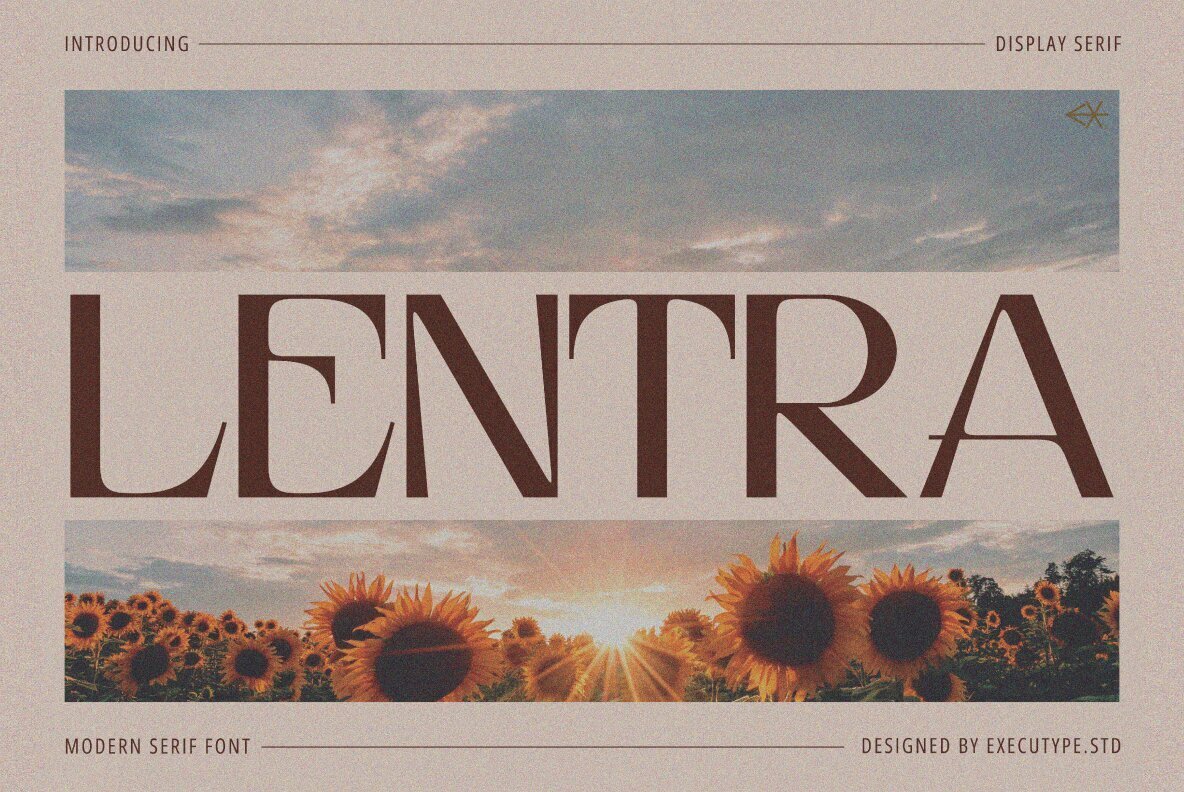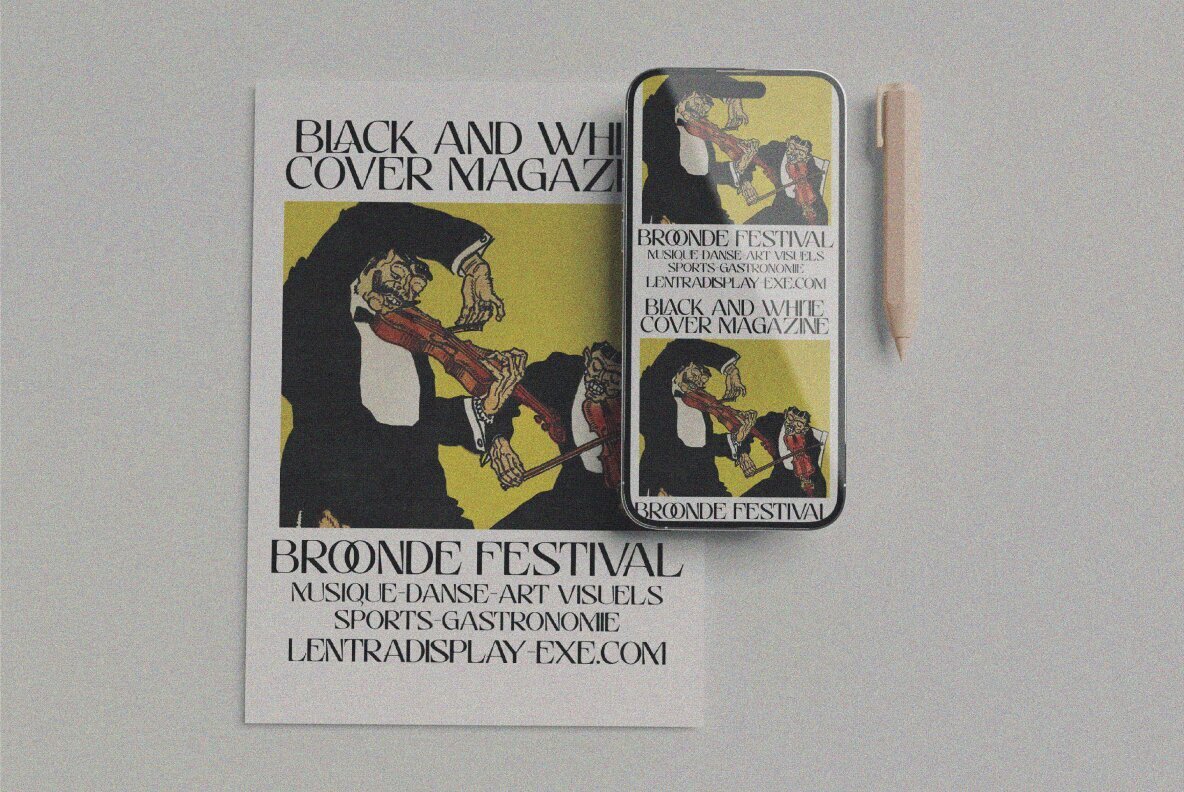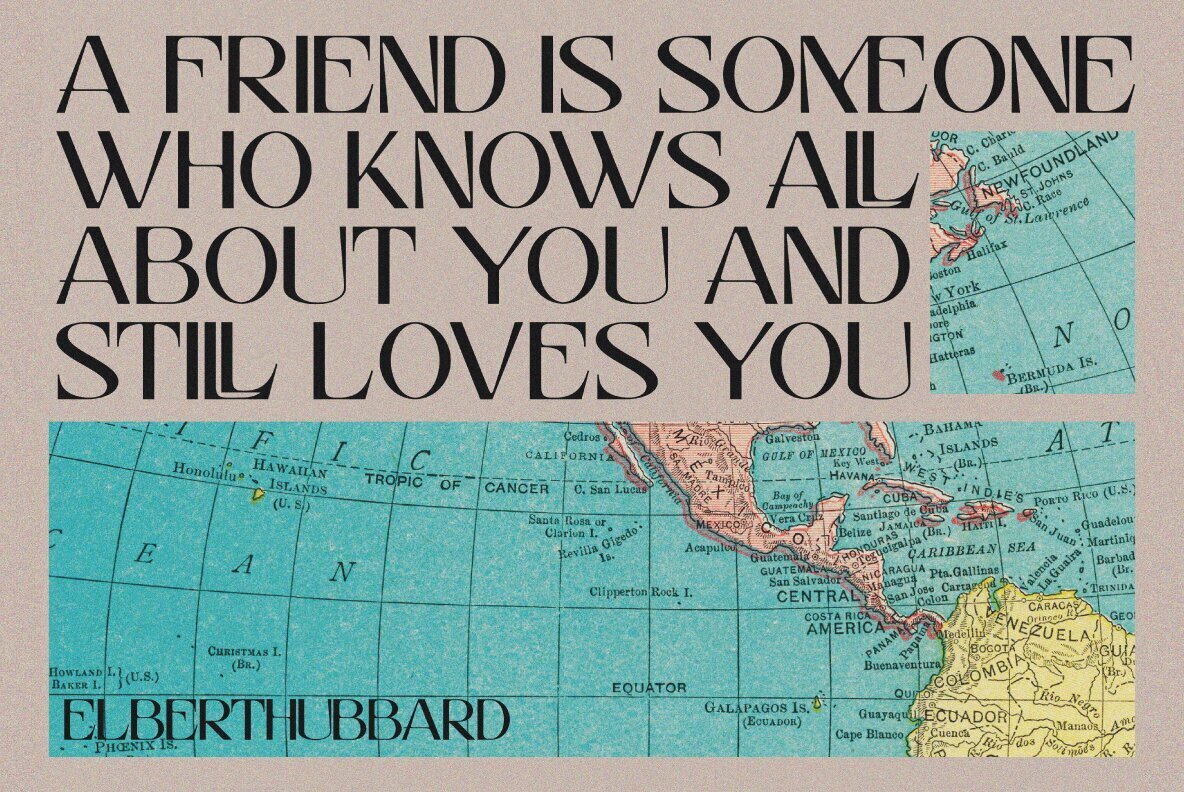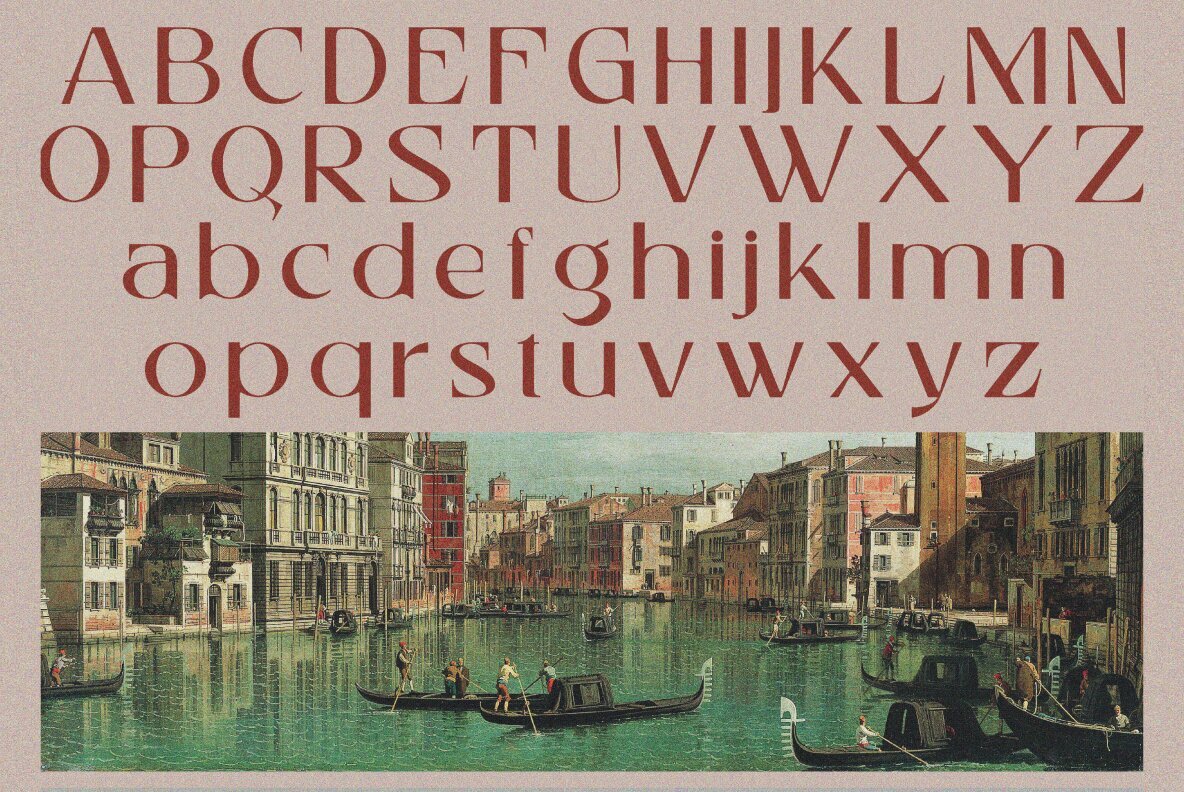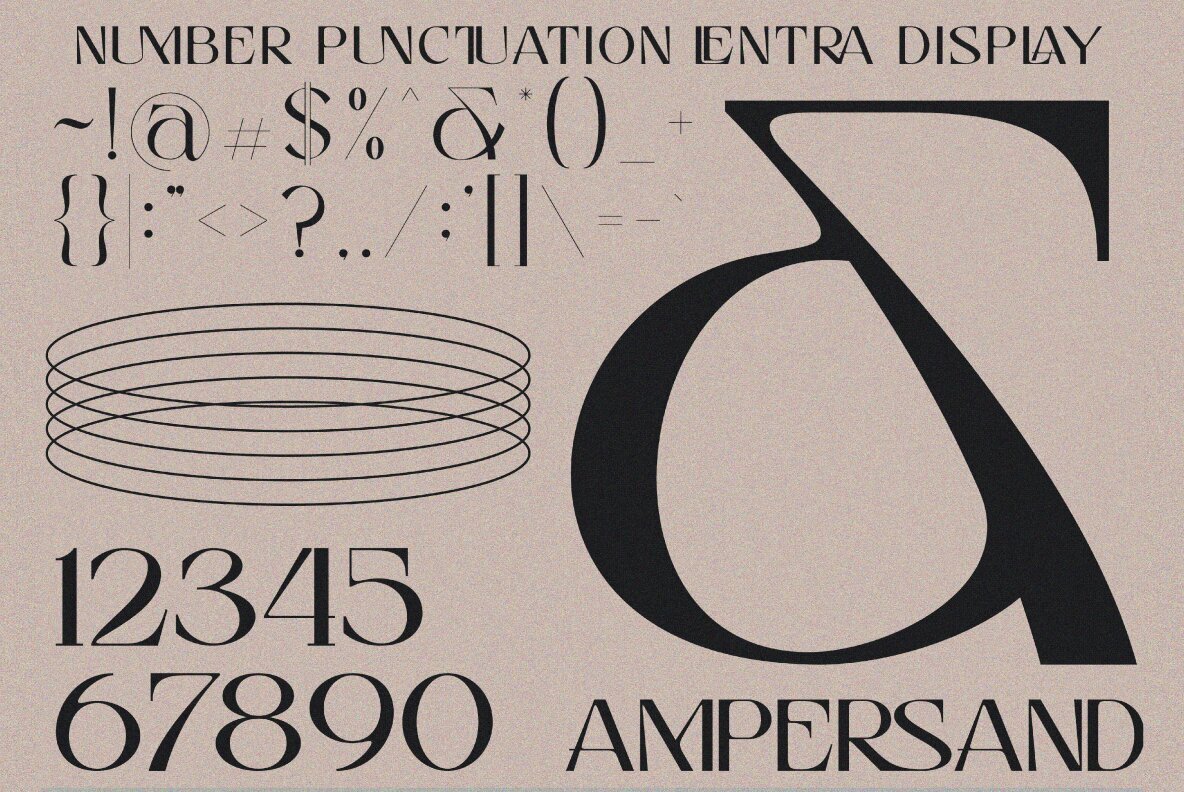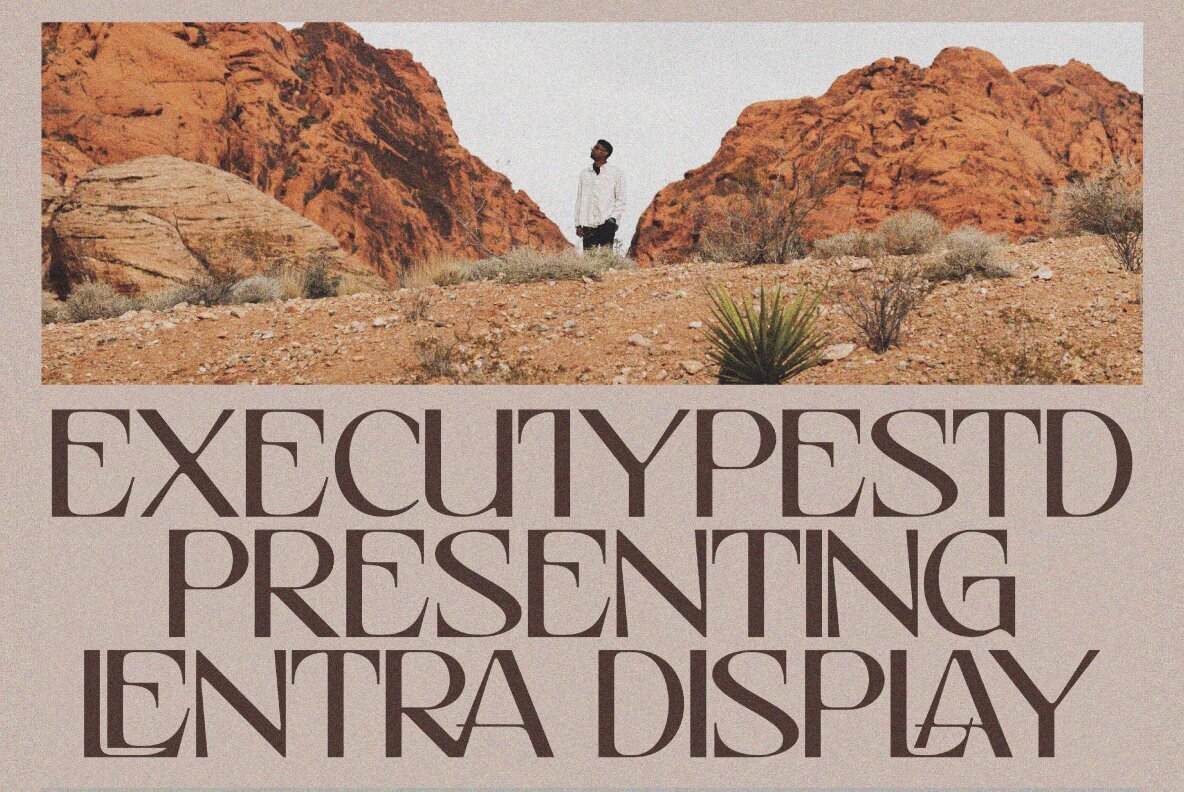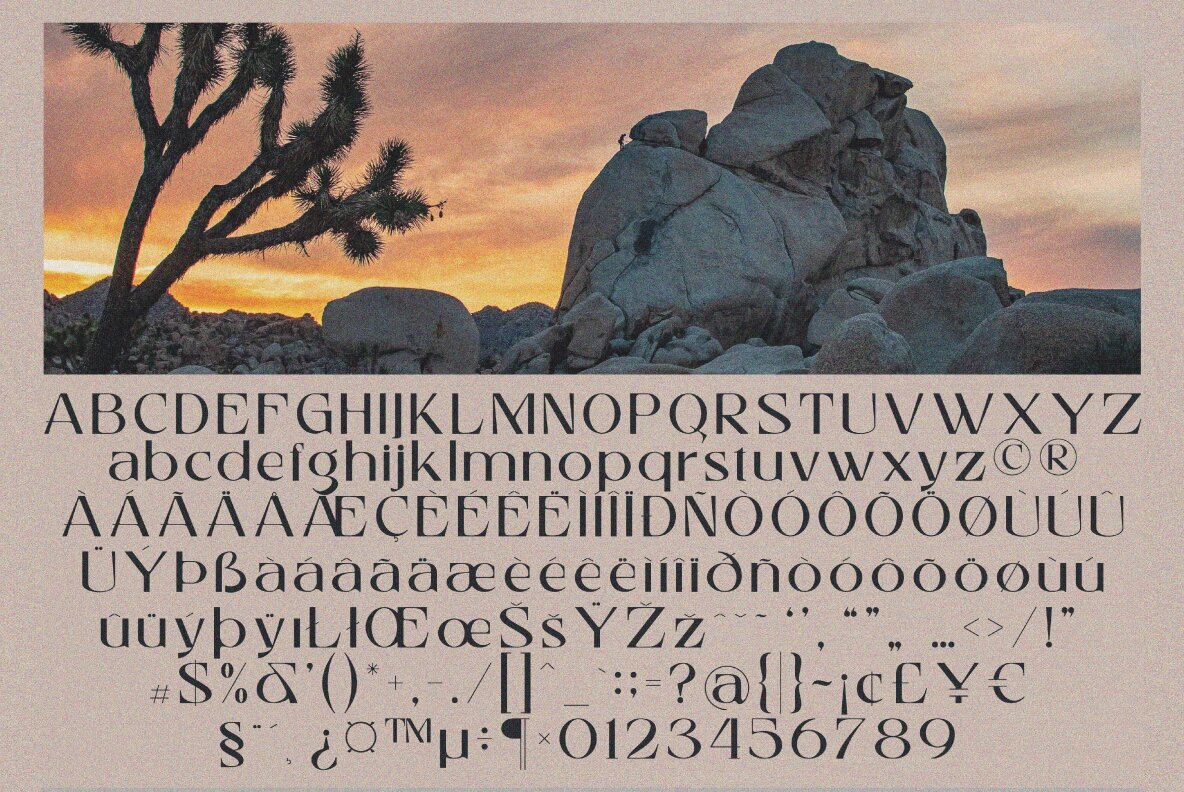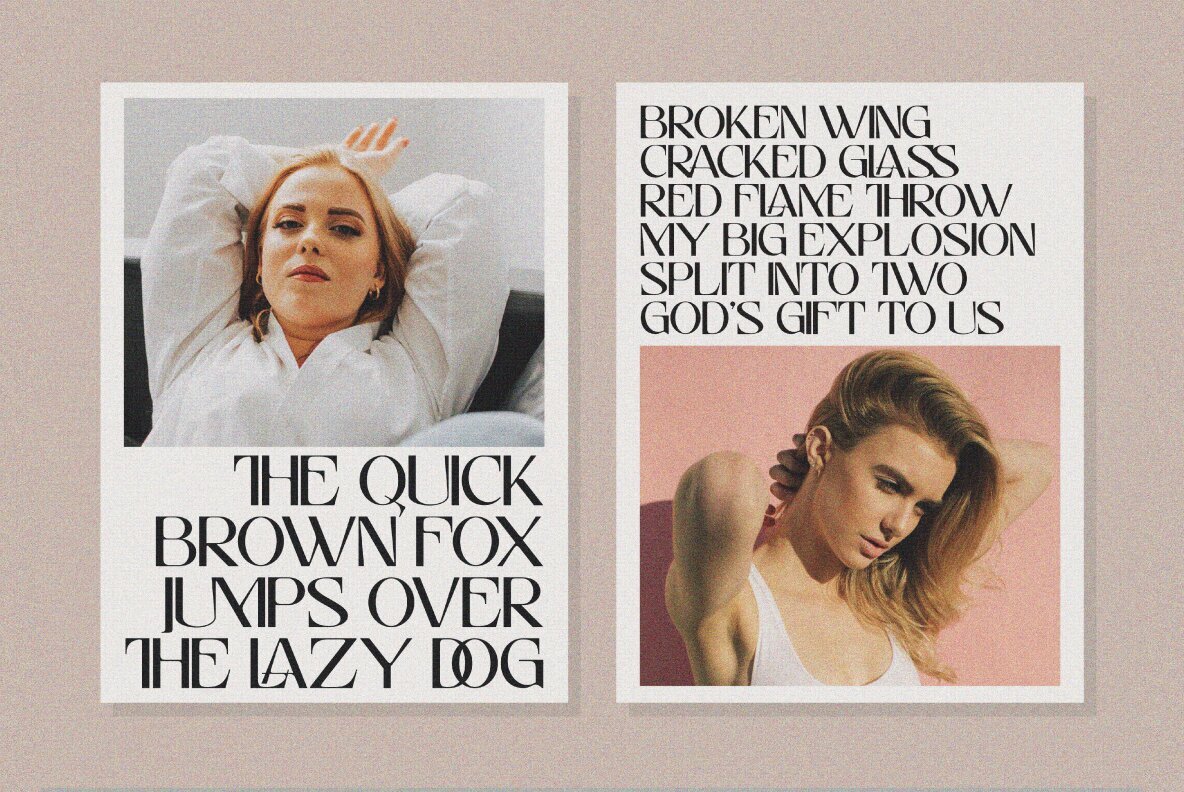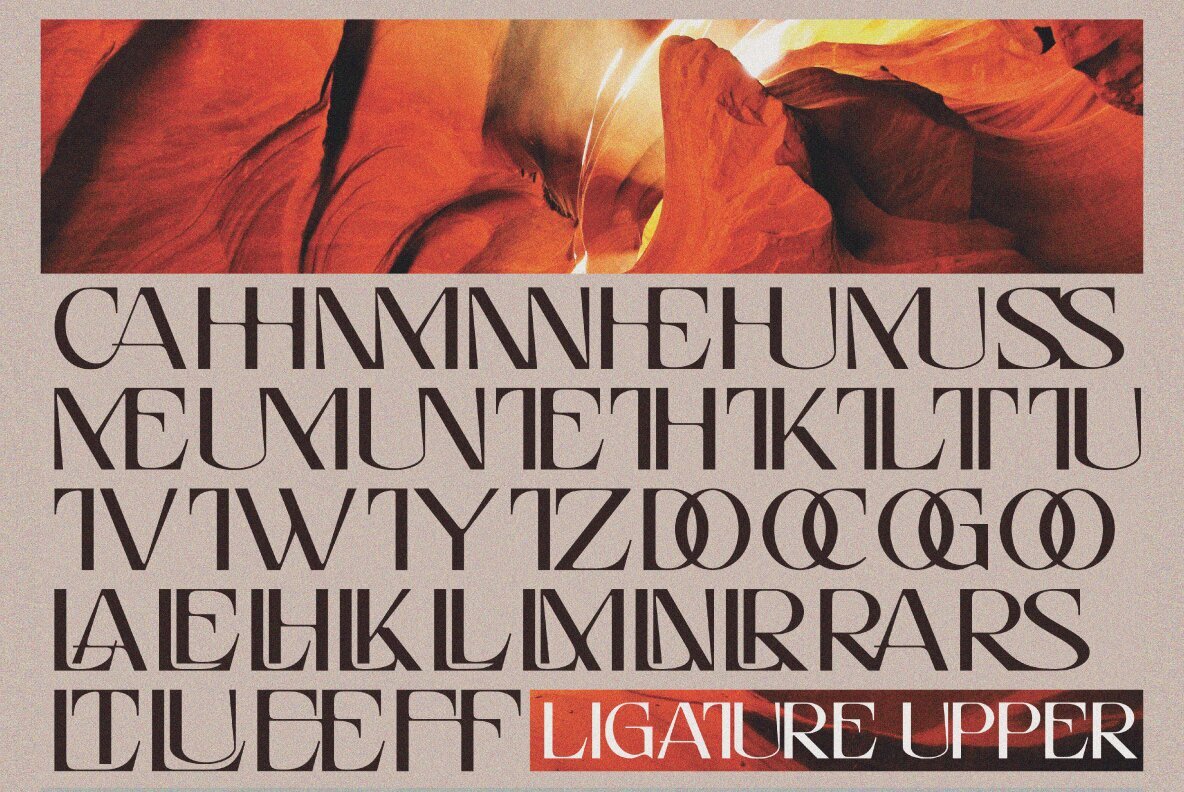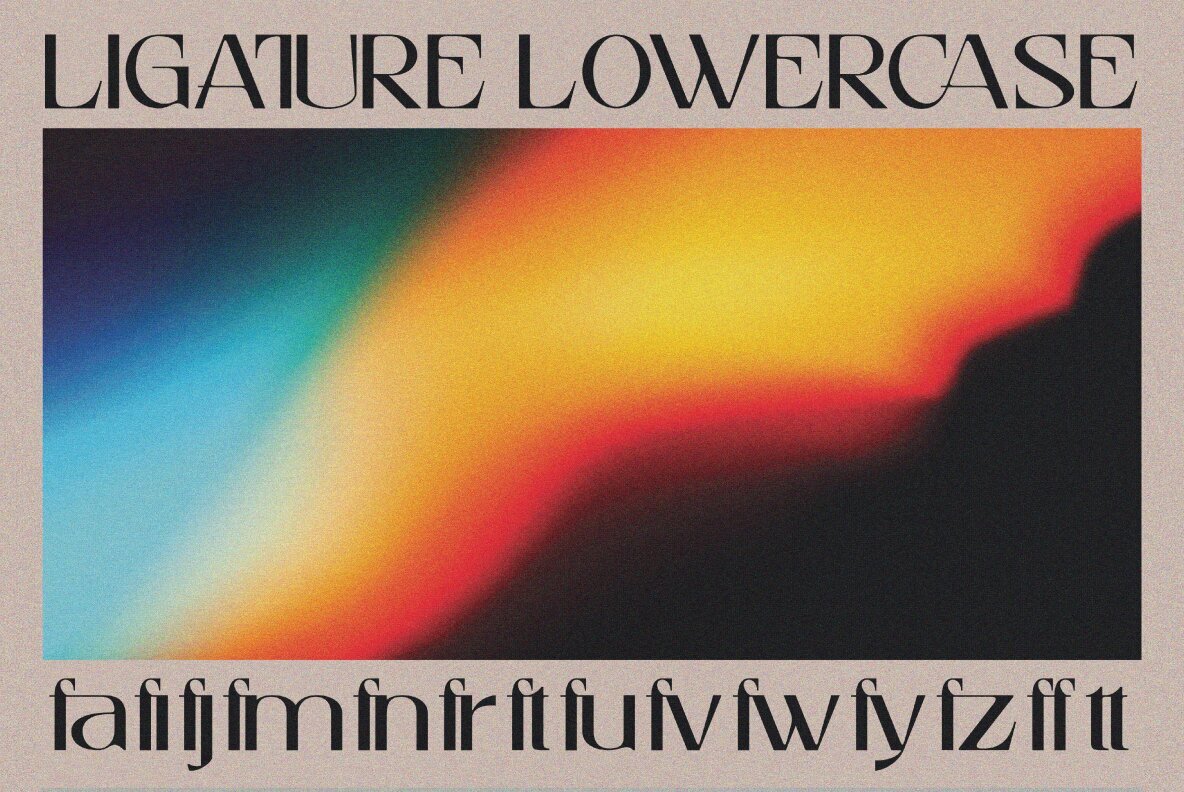
Lentra Font
Lentra Display Regular
Lentra Display, a contemporary serif font with a robust style, boasts a captivating baseline that dances energetically. Its elegant design enhances invitations, greeting cards, and business branding, making it a versatile choice for posters, quotes, and more. This typeface commands attention in larger display sizes while maintaining readability in smaller text. The sharp angles of its triangular serifs and unique letterforms lend distinct character to logos and editorial designs alike.Lentra Display: Modern Serif with Dynamic Appeal